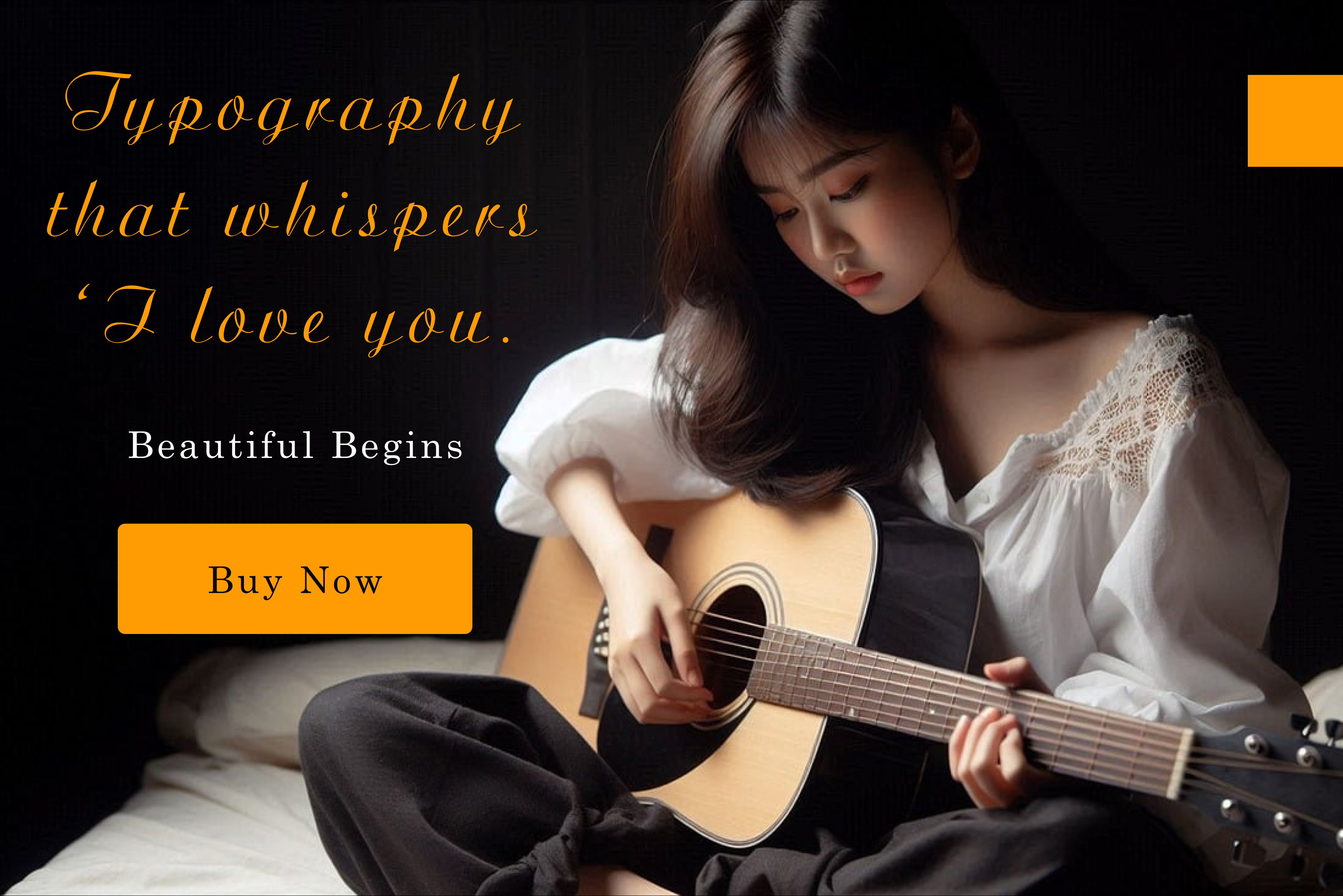
Artistic Signature Font
Introducing Artistic Script Signature Font – a beautifully crafted typeface designed to elevate your creative projects. This font exudes elegance and sophistication, making it the perfect choice for anyone looking to add a personal touch to their work.
- Elegant & Versatile: Whether you're designing logos, invitations, branding materials, or social media graphics, Artistic adds a refined and artistic flair to any design.
- Handwritten Charm: This font's fluid, handwritten style mimics the natural flow of a signature, giving your work a unique and authentic feel.
- High-Quality Design: Each letter in Artistic has been meticulously crafted to ensure that your text looks professional and polished in any size or context.
Elevate your design projects with the Artistic Script Signature Font – a must-have for anyone looking to make a lasting impression. Purchase today and start creating beautiful, timeless designs.